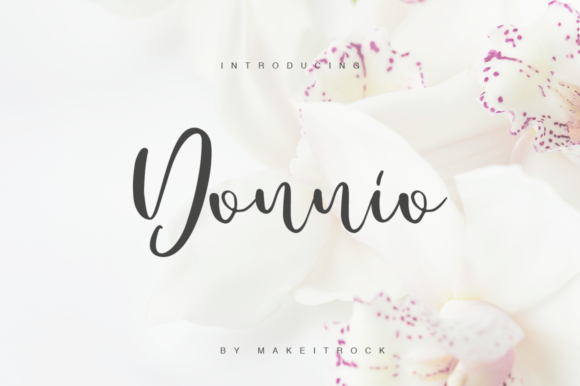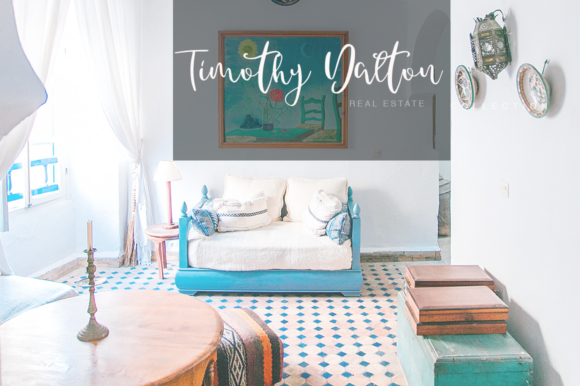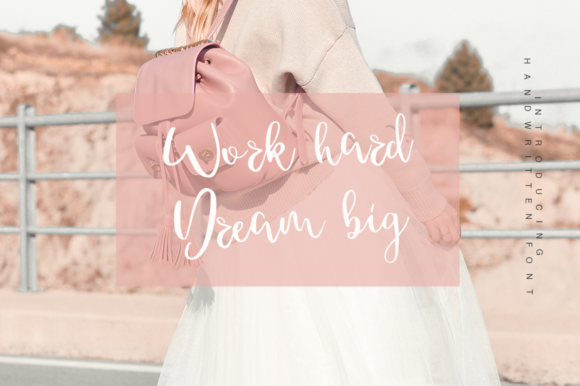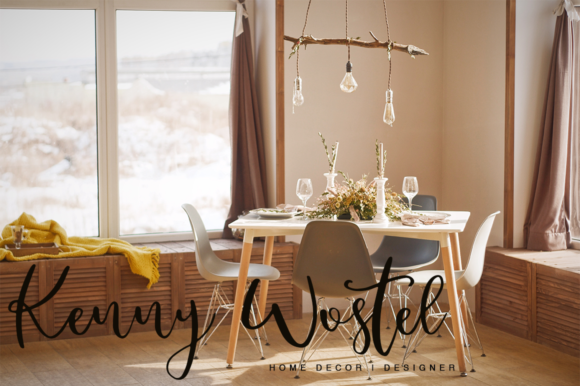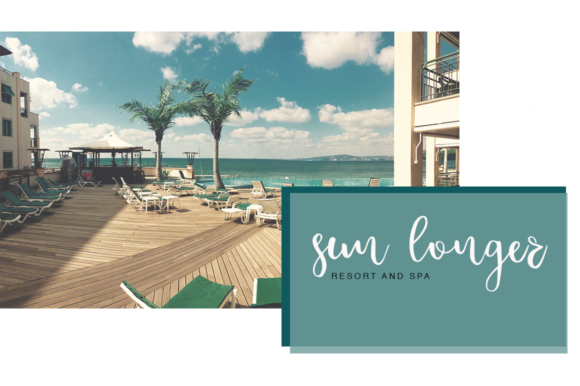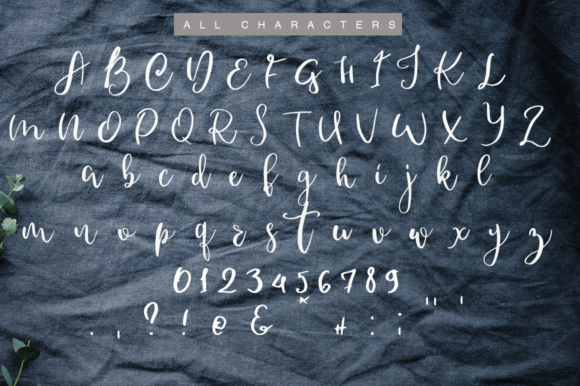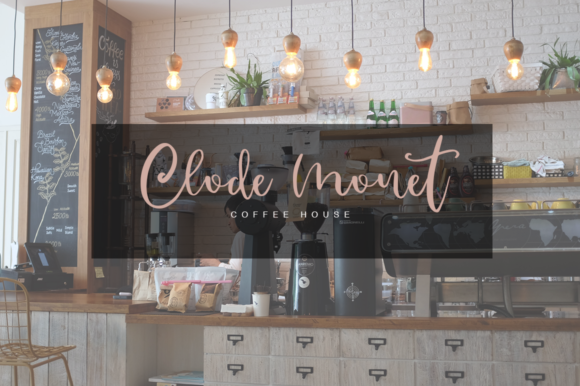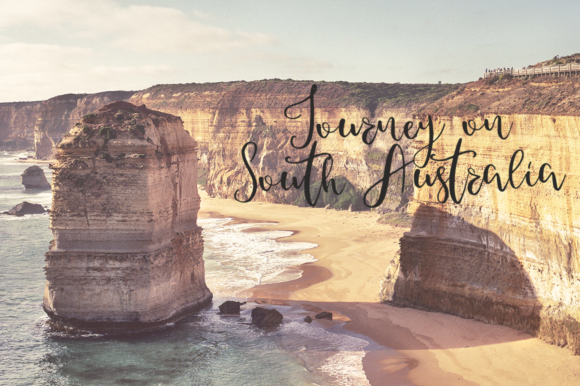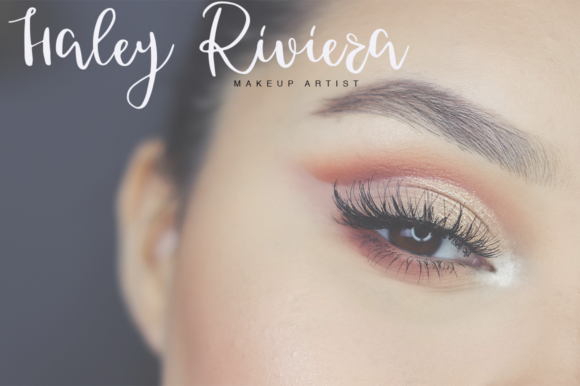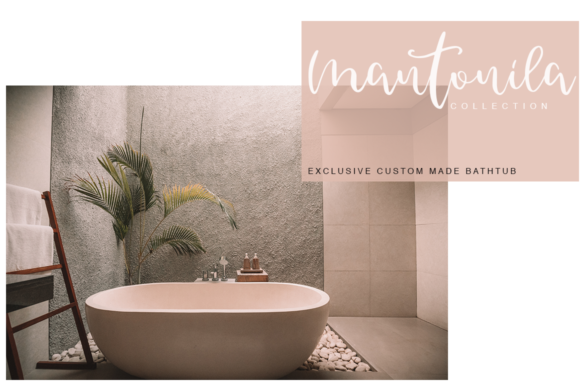
Donnio Font
About Donnio Font
Donnio is a script font that has been attentively written with gentle curves to produce a font that’s completely distinctive and original. Perfect for adding a elegant and unique touch to your lettering projects and branding.